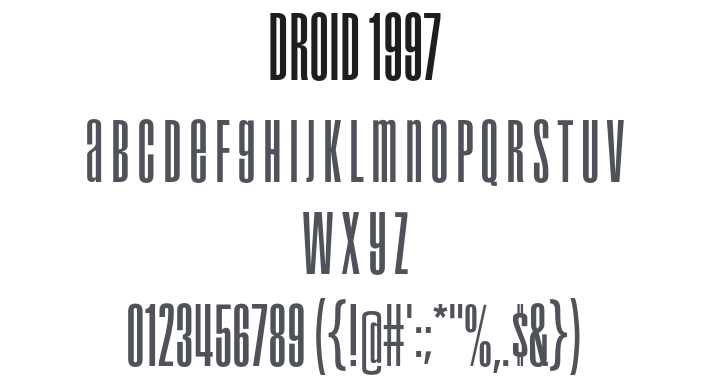
Droid 1997 Font
About Droid 1997
Droid 1997 is a compact, ultra-narrow unicase sans-serif display typeface — one of Ray Larabie's earliest fonts from 1996, capturing the sleek futuristic aesthetic of mid-1990s graphic design. Its tall, tight letterforms feel like something off a cutting-edge tech demo from that era. Great for retro-90s themed designs, sci-fi interfaces, digital nostalgia projects, and headlines needing a distinctly Y2K-era personality.